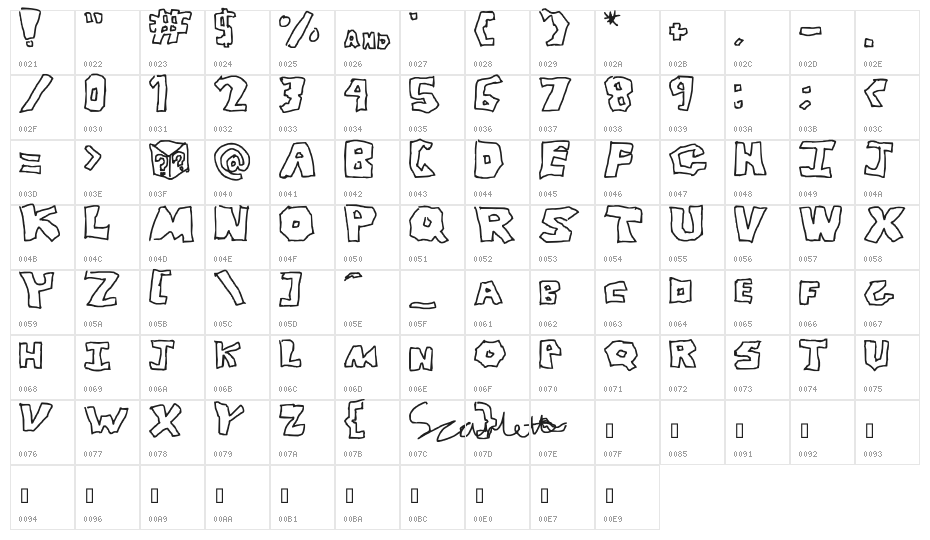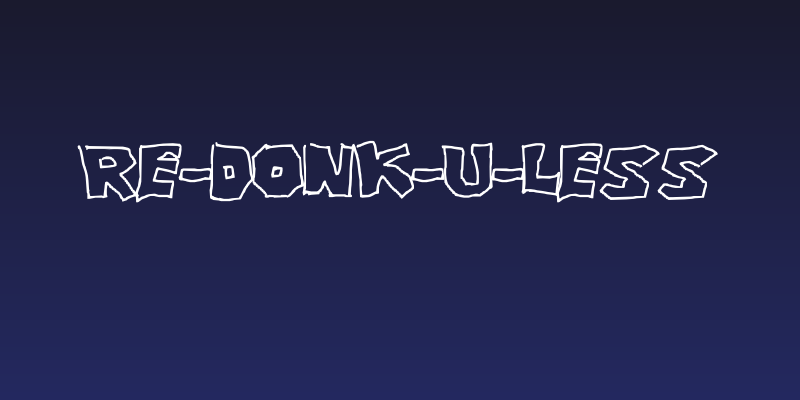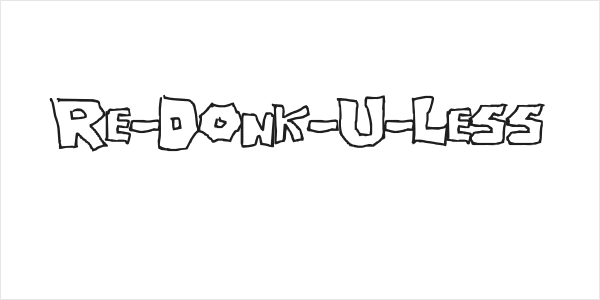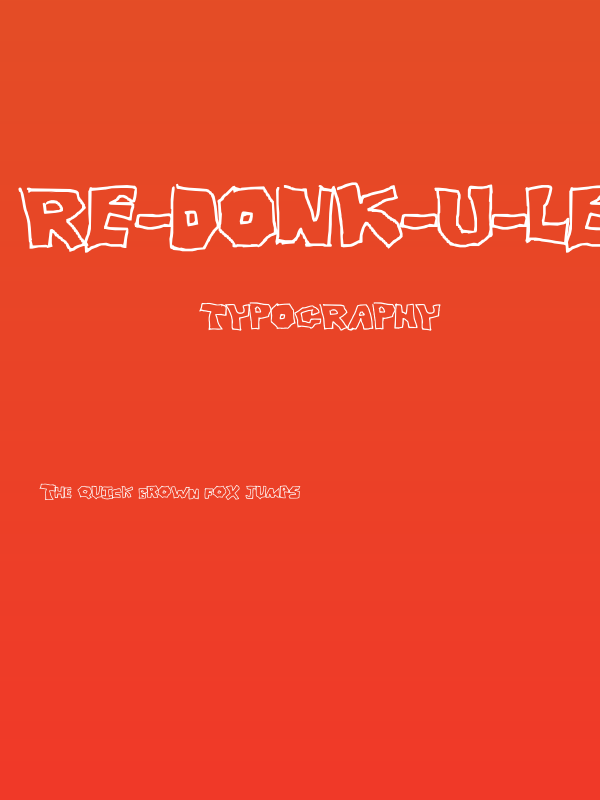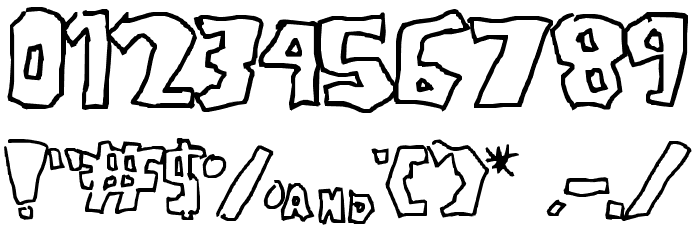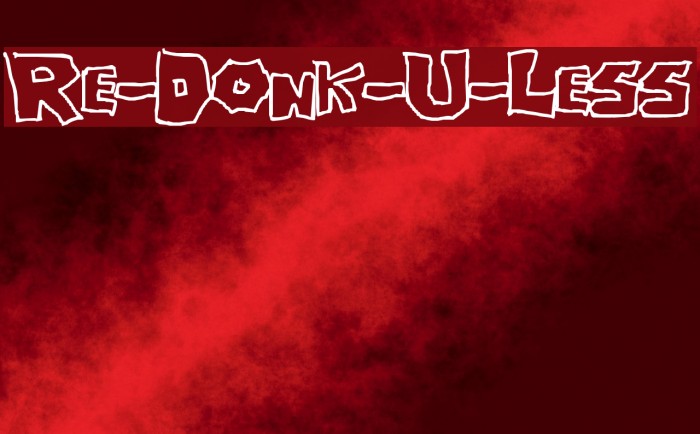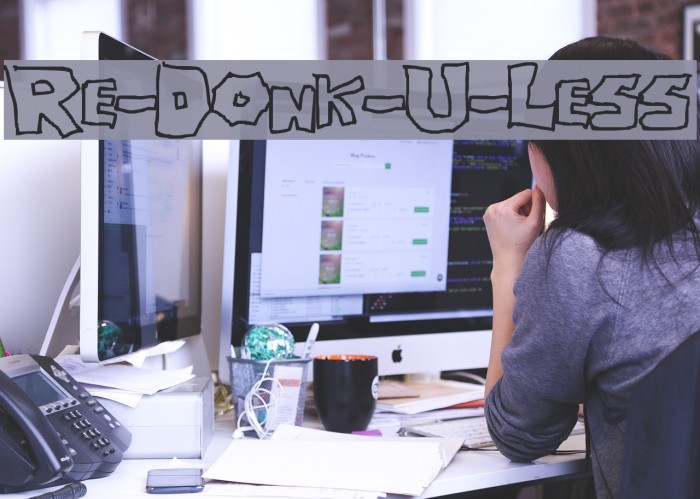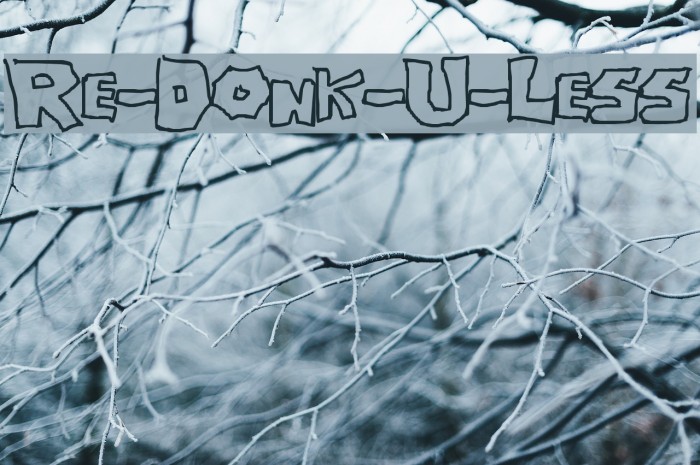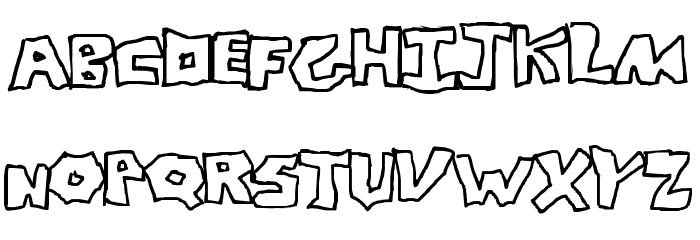
Re-Donk-U-Less Font
Re-Donk-U-Less Description
This font features a playful and quirky design with irregular, jagged edges that give it a hand-drawn, cartoonish appearance. The characters are bold and have a slightly uneven baseline, adding to the whimsical feel. The uppercase and lowercase letters maintain a consistent style, with exaggerated angles and a dynamic, energetic look. Numbers and special characters follow the same design principles, ensuring a cohesive appearance across all glyphs. The font's unique style makes it stand out, perfect for projects that require a fun and informal touch.
| Overall Style | Whimsical |
| Use Case | Headlines, Posters, Branding |
| Proposed Projects | Ideal for children's books, comic strips, playful branding, and informal event invitations. |